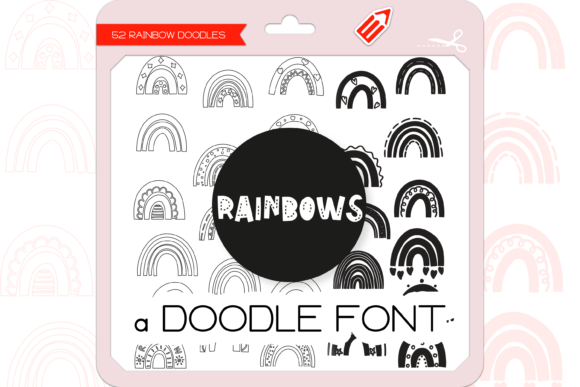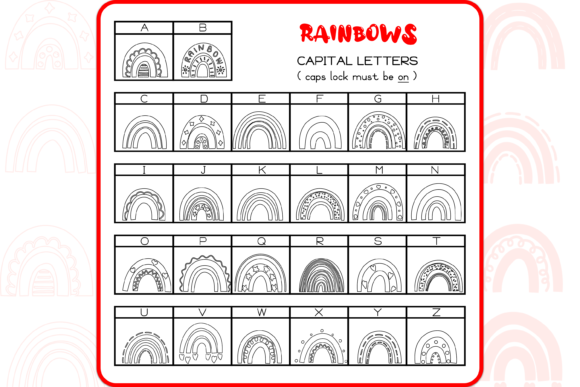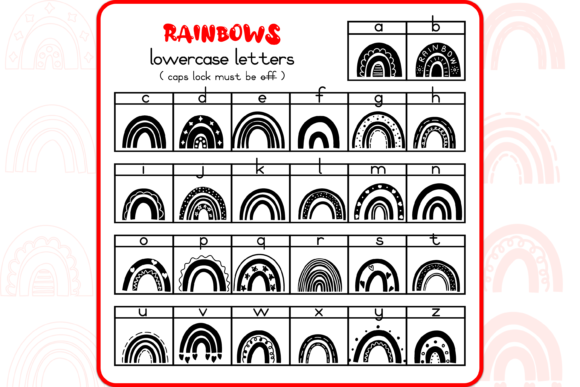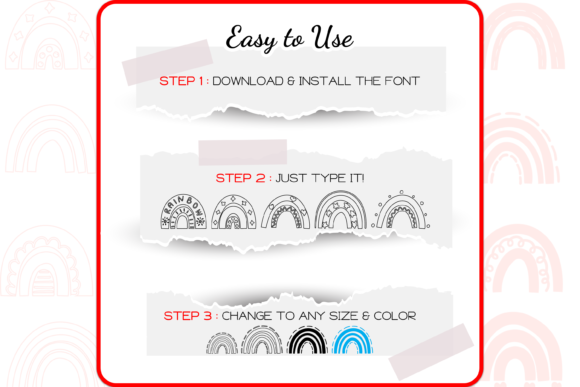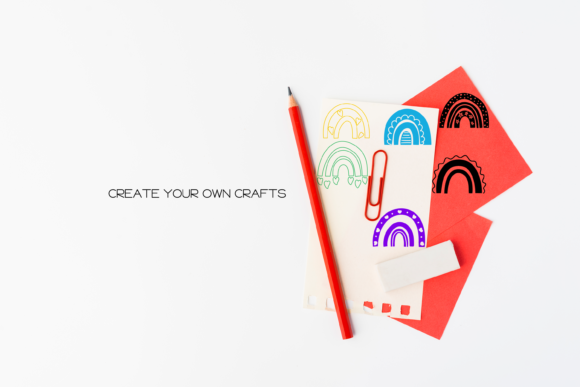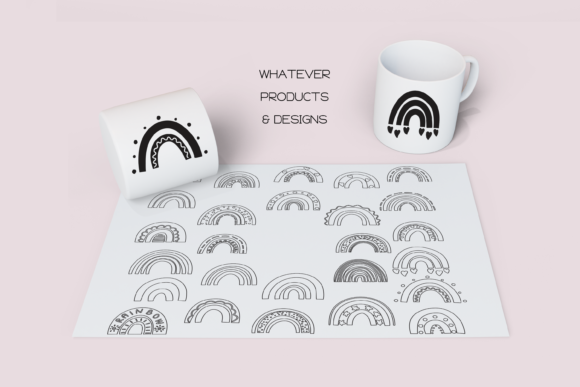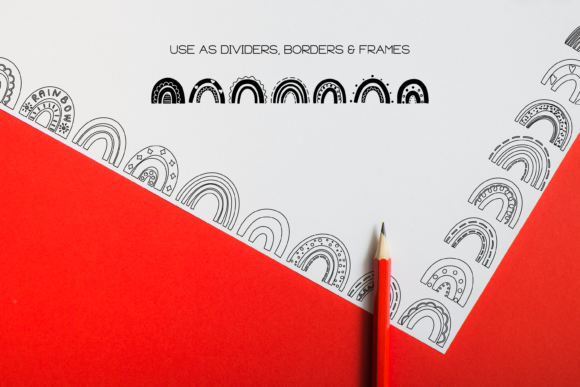
Rainbows Dingbats Font
Absolutely! “Rainbows” is a sweet and delightful dingbats font that can add a touch of whimsy and charm to your designs. With its collection of hand-drawn doodles inspired by rainbows, this font offers endless creative possibilities. Here are some ways you can incorporate “Rainbows” into your designs:
1. Borders and Dividers: Use the rainbow-inspired doodles as decorative borders or dividers to add a colorful and playful touch to your designs. These elements can be applied to invitations, posters, flyers, or any design that needs a touch of joy and creativity.
2. Frames: Enhance your photos or artwork by incorporating the doodles from “Rainbows” as frames. These unique and hand-drawn frames can add a whimsical and cheerful feel to your images, making them stand out and catch the viewer’s attention.
3. Text Emphasis: Use the doodles as decorative elements to emphasize specific text in your designs. For example, you can place a rainbow doodle around important headings or titles to draw attention and create a visually appealing focal point.
4. Patterns and Backgrounds: Create delightful patterns or backgrounds using the rainbow-inspired doodles. By repeating these elements, you can design charming and lively backgrounds for various applications such as stationery, packaging, or digital designs.
5. Social Media Posts: Incorporate the doodles from “Rainbows” into your social media graphics to add a fun and eye-catching element. Whether it’s for announcements, quotes, or promotions, these doodles can make your posts more engaging and shareable.
6. Crafts and DIY Projects: “Rainbows” can be a great asset for various craft and DIY projects. Use the doodles as stencils or templates for painting, drawing, or coloring activities. They can also be applied to scrapbooking, card-making, or other paper crafts to add a delightful touch.
7. Children’s Designs: With its playful and colorful doodles, “Rainbows” is particularly well-suited for children’s designs. Use the doodles to create illustrations, storybook covers, educational materials, or any other design that targets a younger audience.
Remember to explore different combinations, sizes, and colors of the doodles to create unique and outstanding designs. The hand-drawn nature of “Rainbows” adds a personal and organic touch to your creations, making them feel special and one-of-a-kind.
In summary, “Rainbows” is a sweet and delightful dingbats font that can add a touch of whimsy and charm to your designs. Whether you’re using the doodles as borders, dividers, frames, or incorporating them in other creative ways, they are sure to bring joy and visual interest to your projects. Enjoy the playful and colorful possibilities of “Rainbows” and let your designs shine with its delightful hand-drawn doodles!